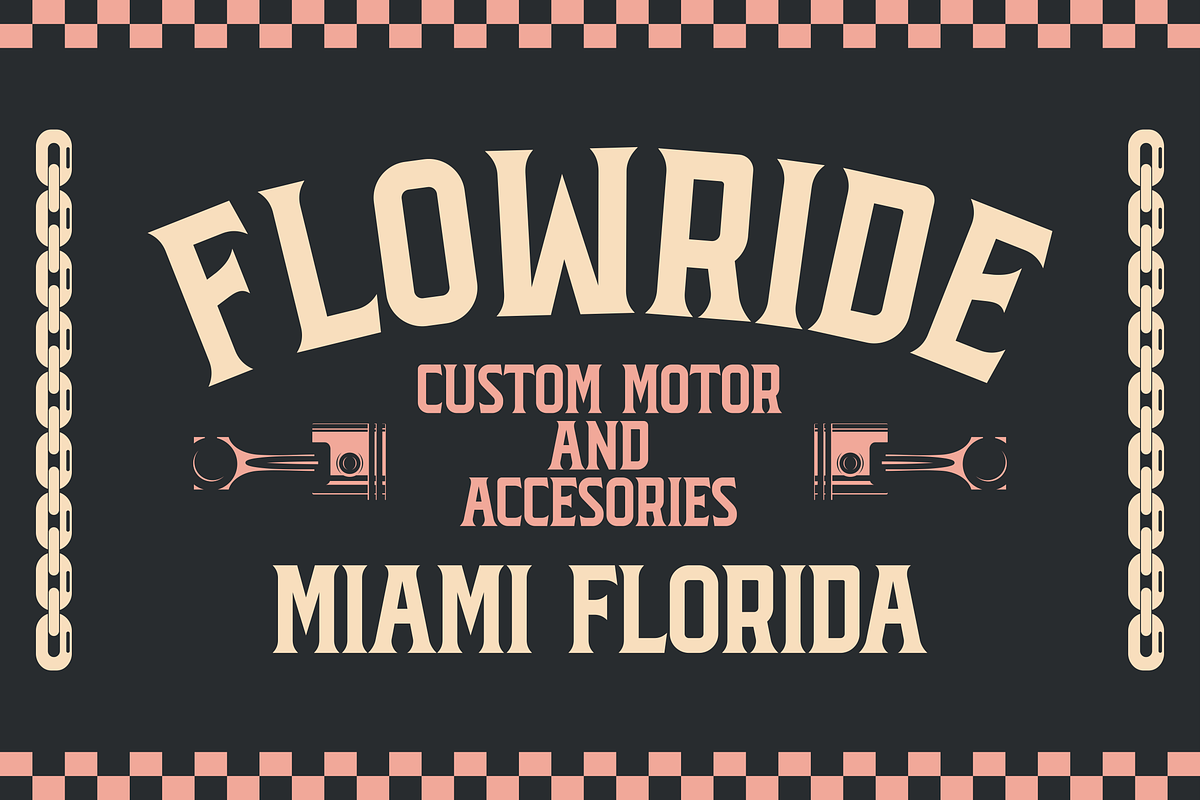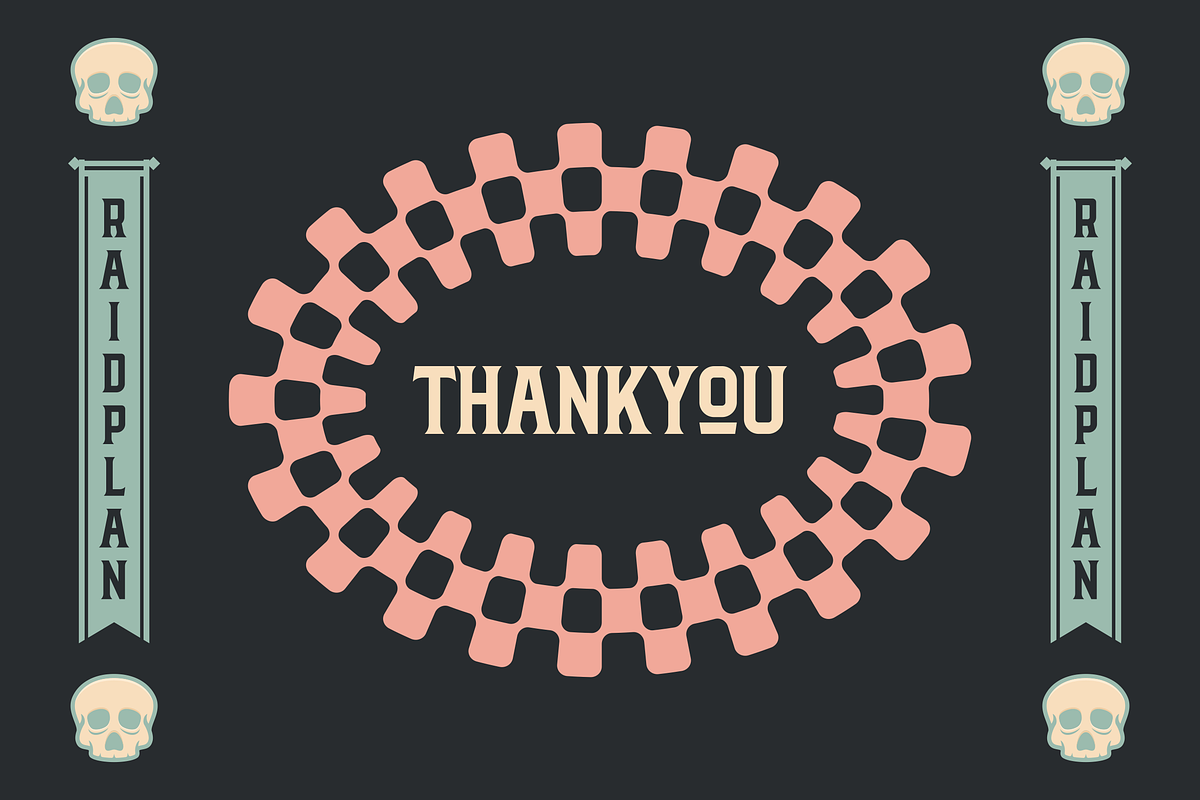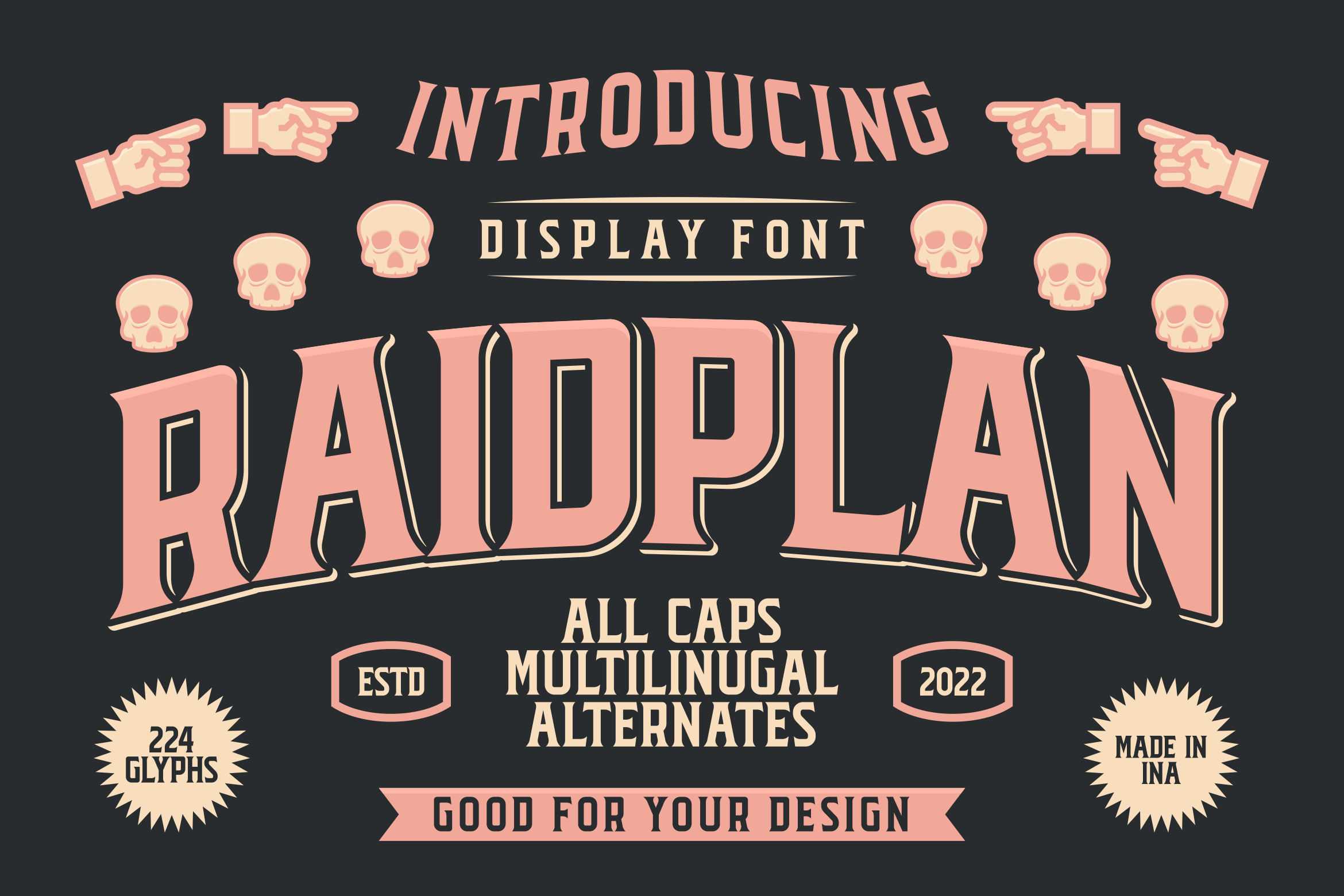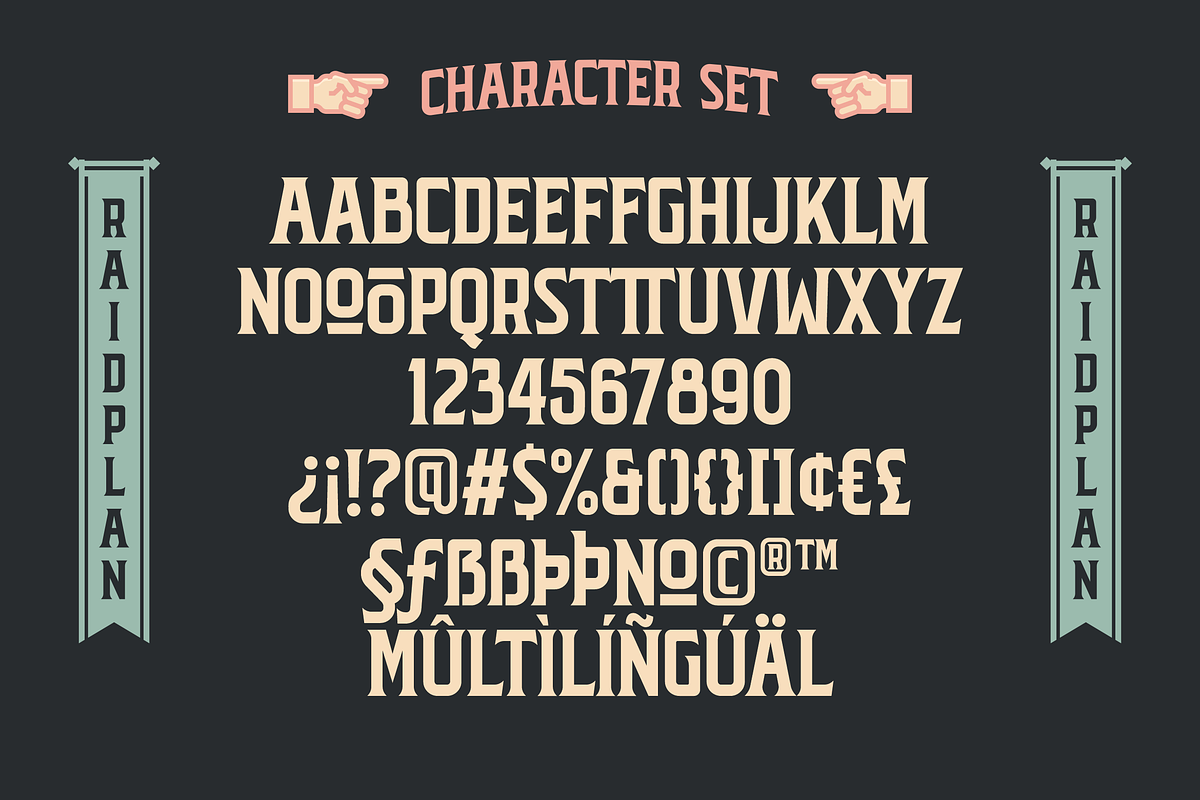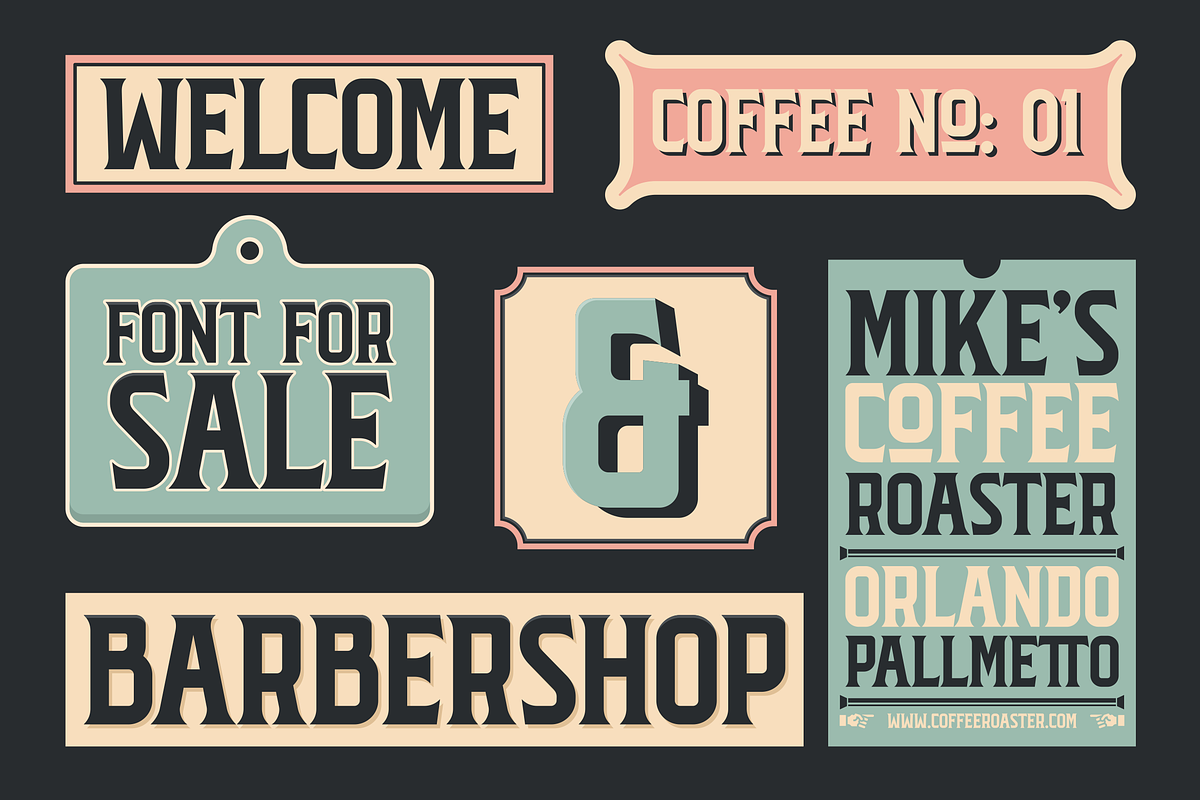
Raidplan Typeface
Introducing our display font, call it Raidplan font inspired by signboards in shops or buildings in American cities, with a classic thick feel suitable for those of you who have businesses whose market is adult men such as barbershops, cafes or bars, custom motorcycle repair shops and other. You can use this font as a logo design, main headline, supporting font in illustrations, posters, sign boards, and others. Please get it now. Thank you
- All caps
- Numeral
- Symbol